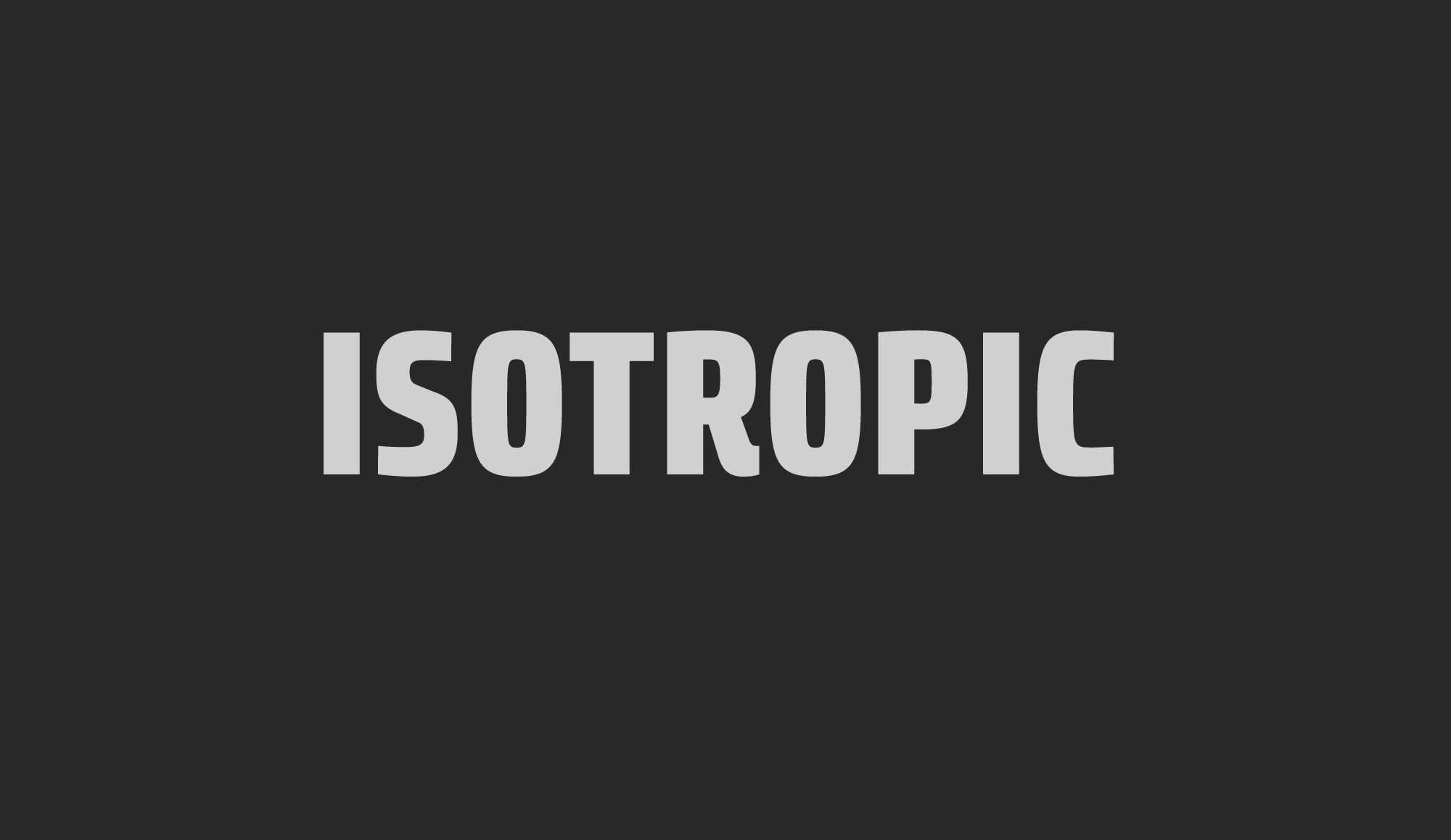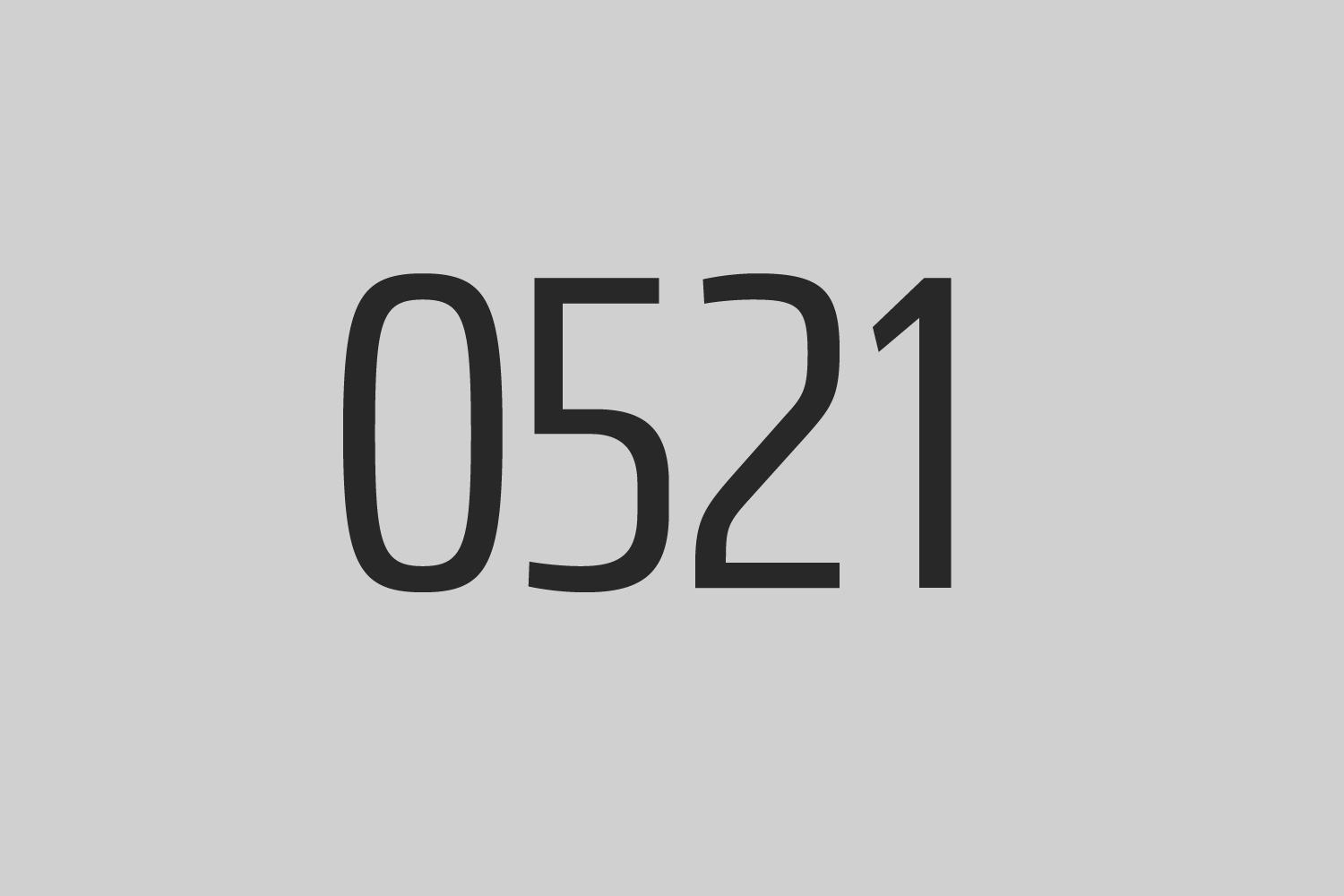
Klint Condensed
A sans serif typeface with a technical appearance and humanistic streak.
Klint’s large x-height makes the design especially legible at small point sizes. In today’s day and age, appliance manufacturers and companies in the mobile phone, computer hardware and software or Internet sectors are becoming ever more important. Klint fills the rising need for superfamilies with a technical feeling that are also legible in both text and display settings. Through conspicuous letters like R, K, k, or g, as well as the independent nature of its Italic, Klint exudes an ethos that separates it from the competition. Longer text passages in brochures, catalogs, or magazines would be well served by Klint’s Light, Regular, and Medium weights. The heavier cuts are optimized for poster settings and headlines.
From Extended to Condensed to Rounded
Klint Superfamily
A Type System
Klint is a superfamily, consisting of an extended, a normal and a condensed width, the normal width is has also a rounded version — all can be combined nicely and work together e.g. in a complex design system. Not to mention that each one has also the strength to work alone. → Check out Klint.